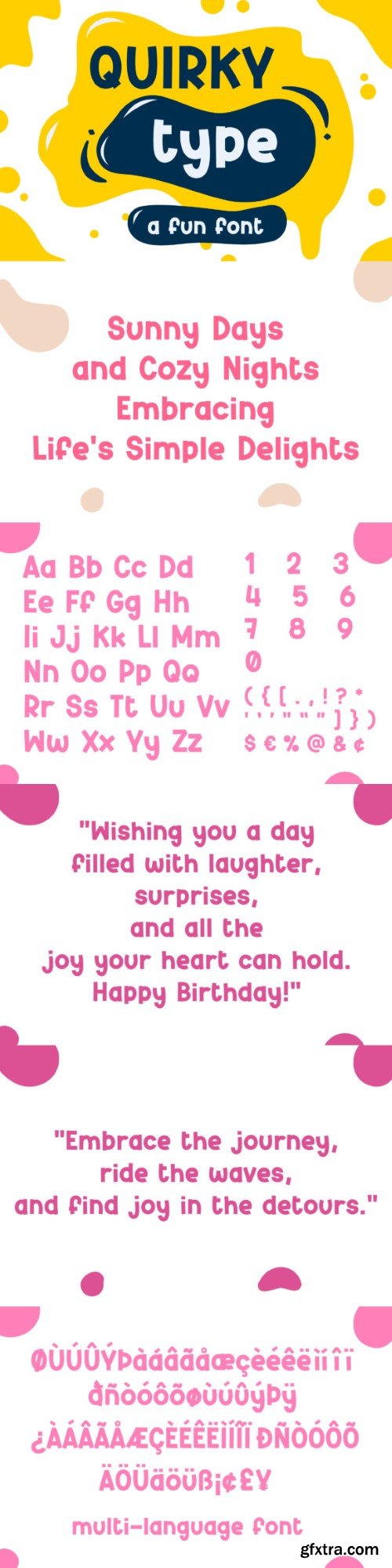
quirkytype 字体
Meet QuirkyType – the font that brings a touch of playfulness to your projects with its charmingly non-uniform letters. With a light-hearted spirit, each character has a style of its own, adding a dash of whimsy to your design. QuirkyType is perfect for those who believe that a little quirkiness makes everything more delightful. Let your creativity sparkle with this fun and breezy font!